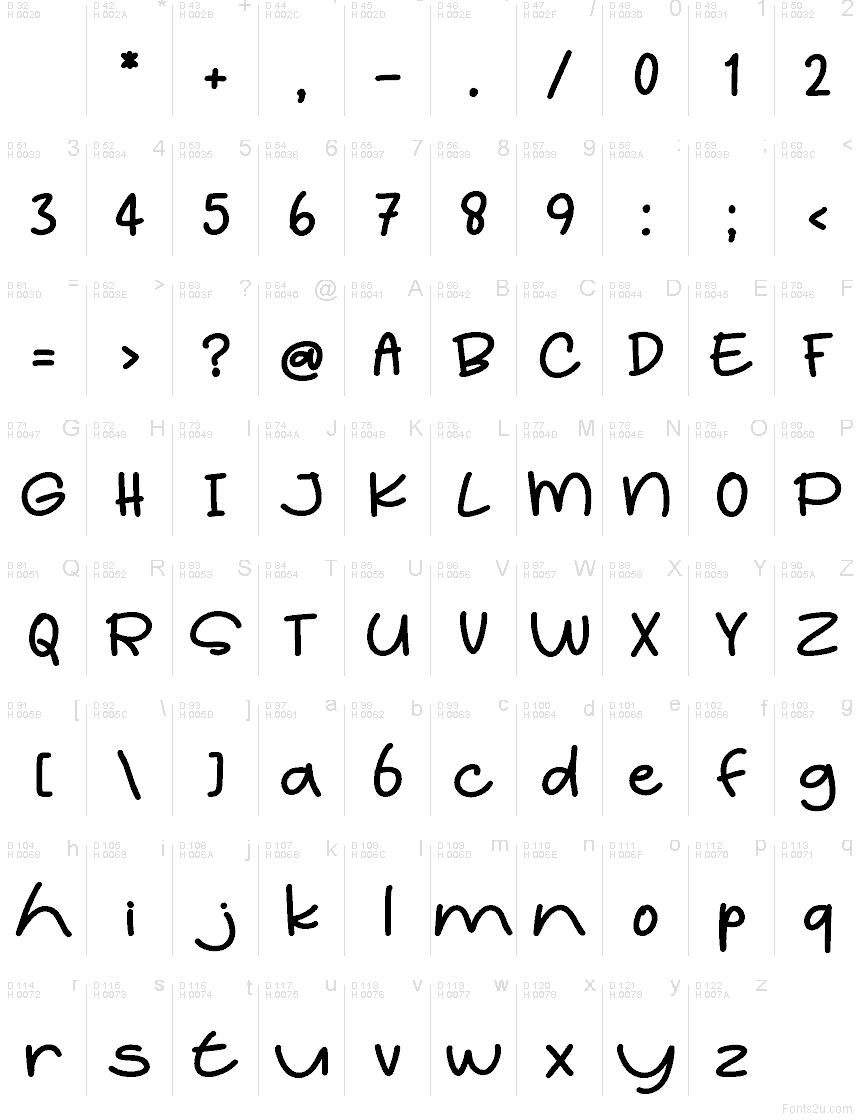
Some Notes by Afkari Studio is a free handwritten marker font with a loose, rounded flow and the easy bounce of quick lettering. The letters feel broad and soft, with smooth curves, slightly uneven joins, and a casual rhythm that reads more like bold notes on paper than polished script.